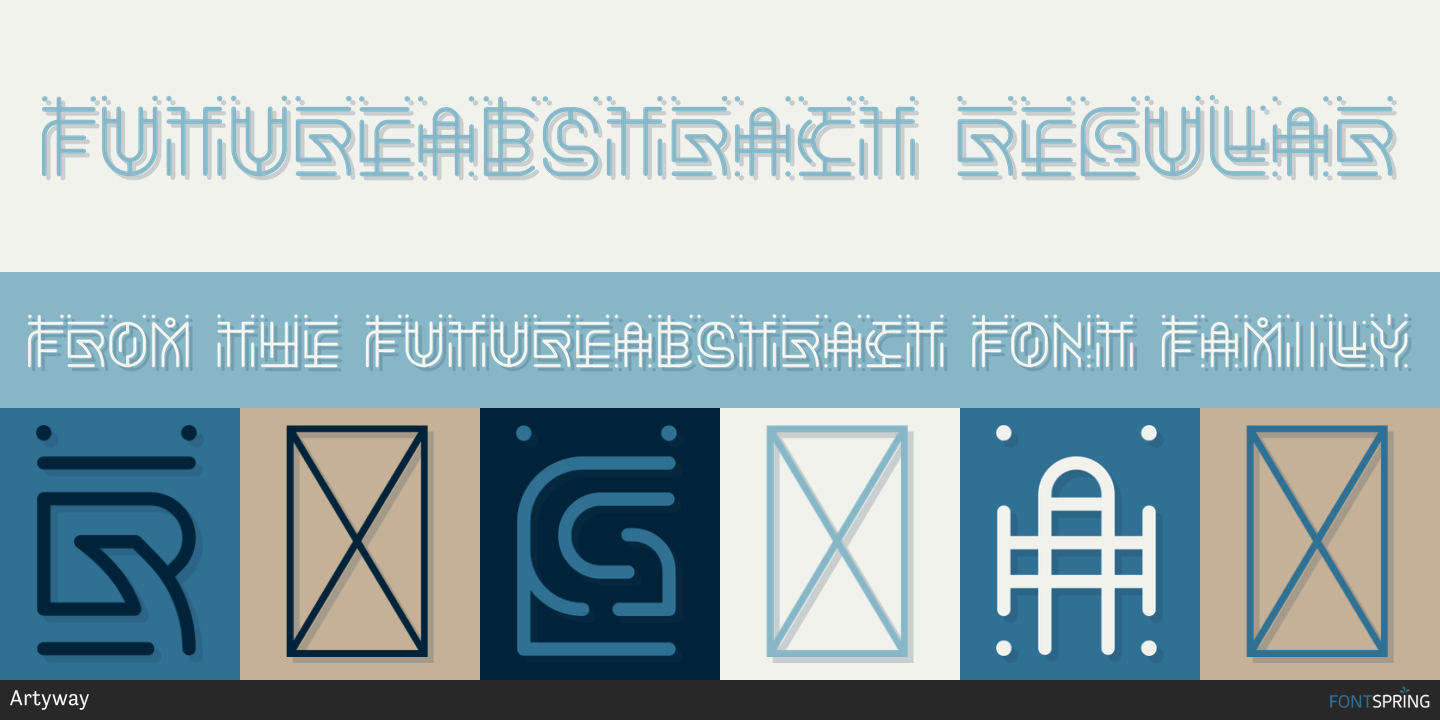
FutureAbstract
Designed by Yehor Lisnyi, FutureAbstract is a display font family published by Artyway.
FutureAbstract - cutting-edge font designed for visionaries and trendsetters.
FutureAbstract is tailored for designers, tech startups, gamers, and digital content creators looking for a font that speaks to a tech-savvy, youthful audience. Its modern and attractive style is also suited for those creating content related to electronic music, virtual reality, and futuristic concepts.